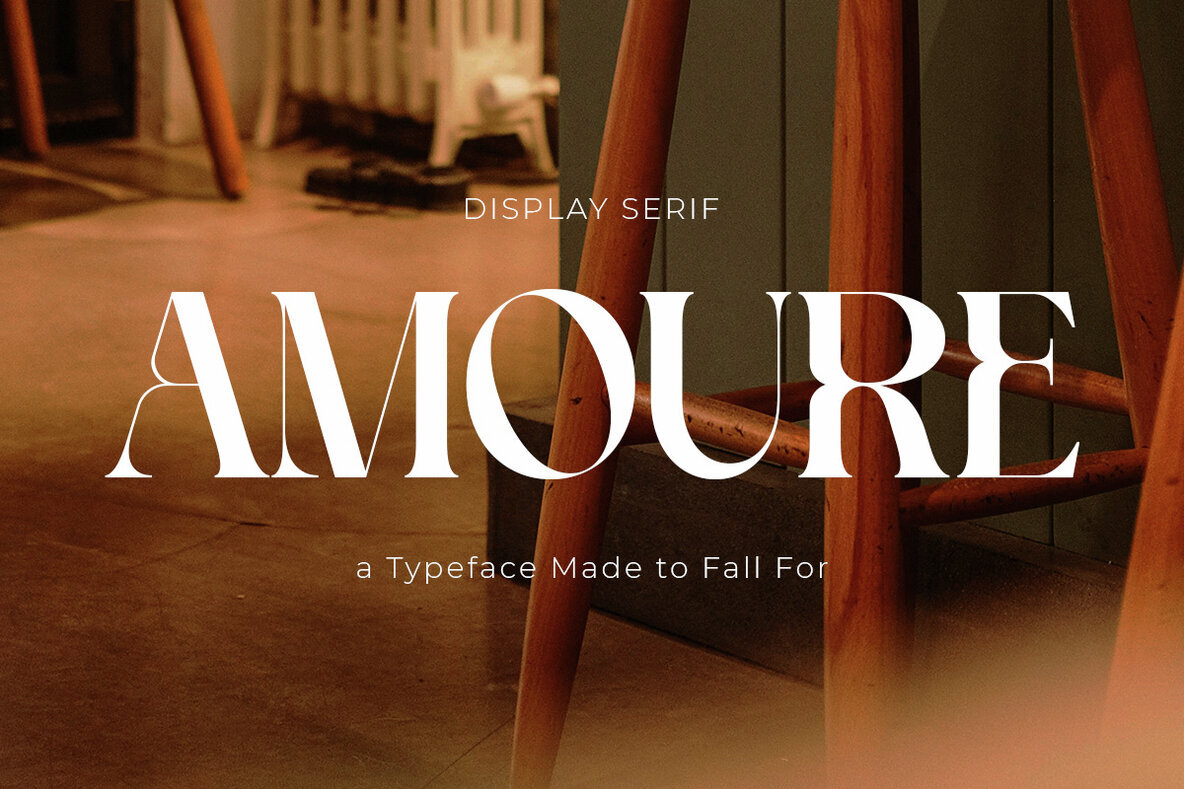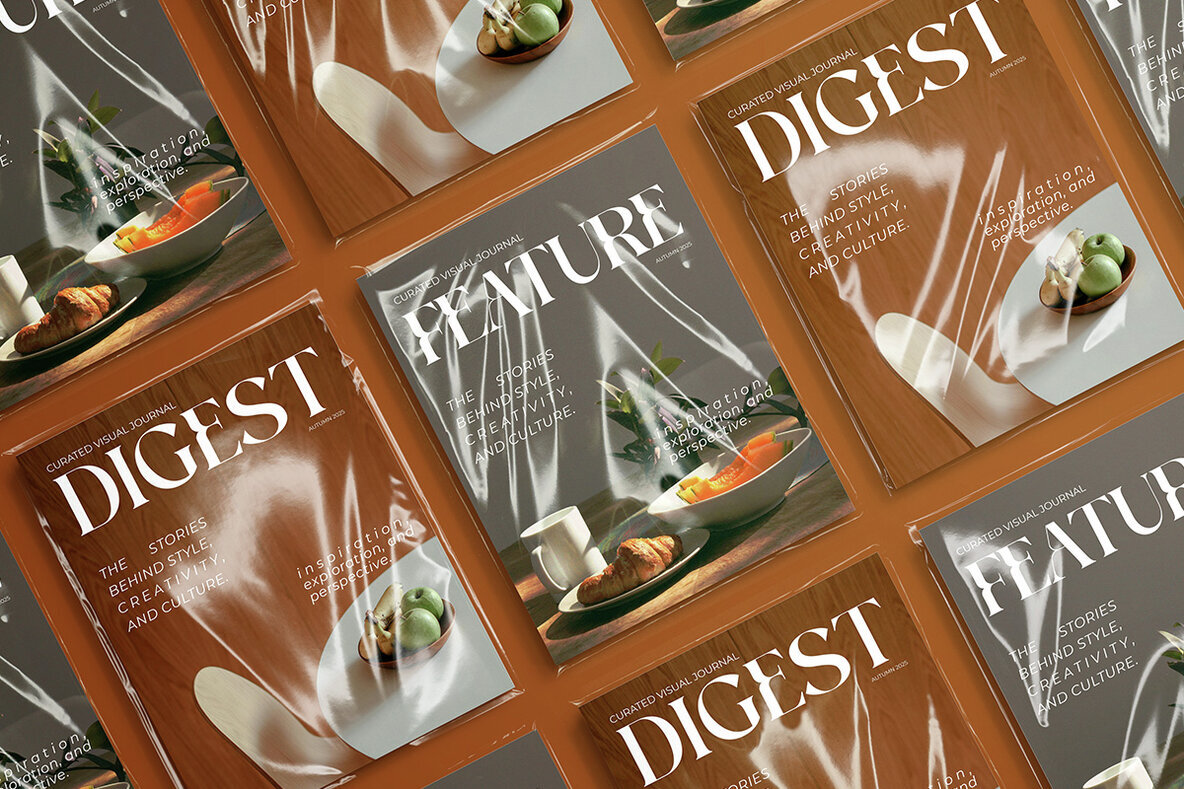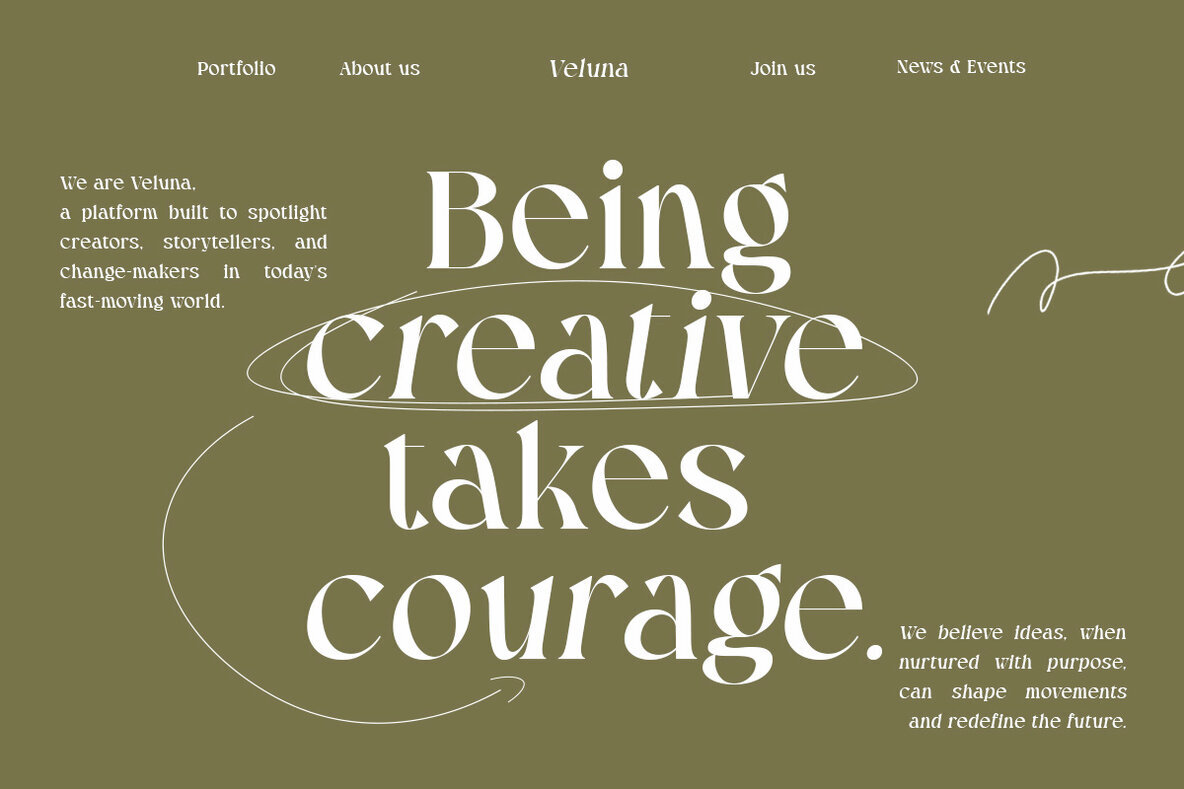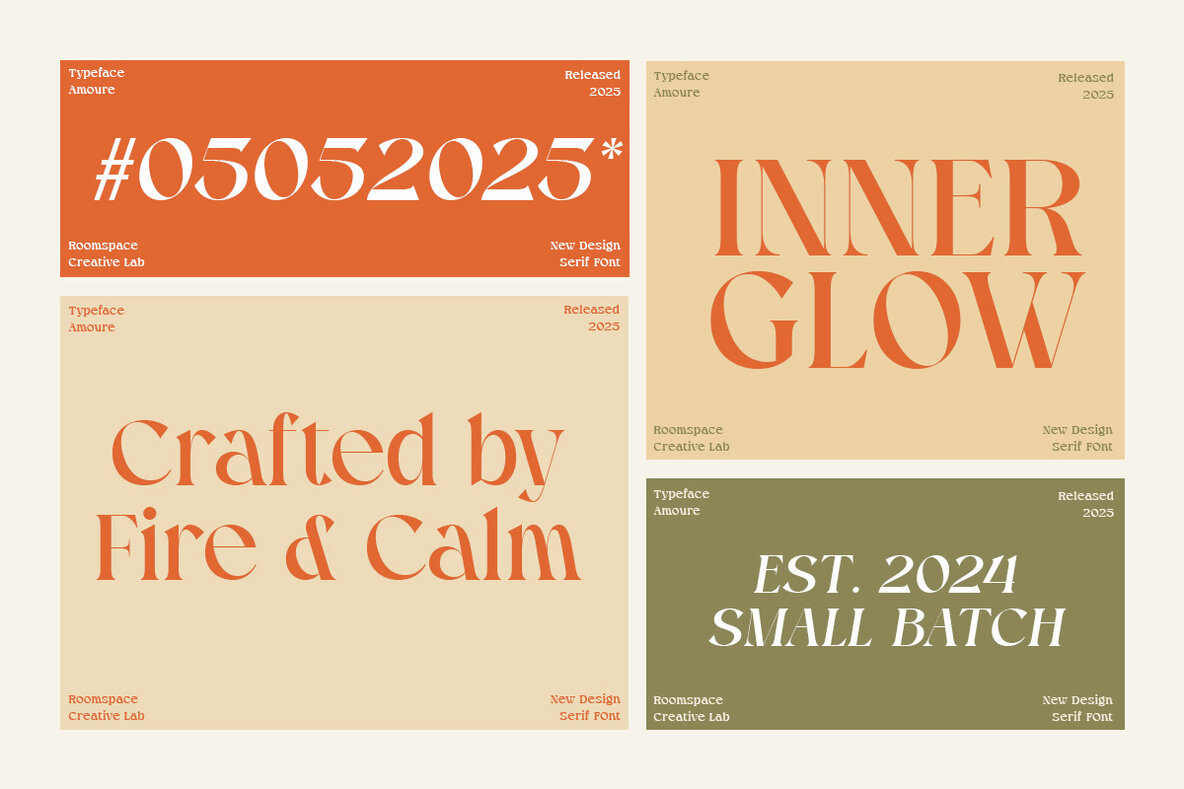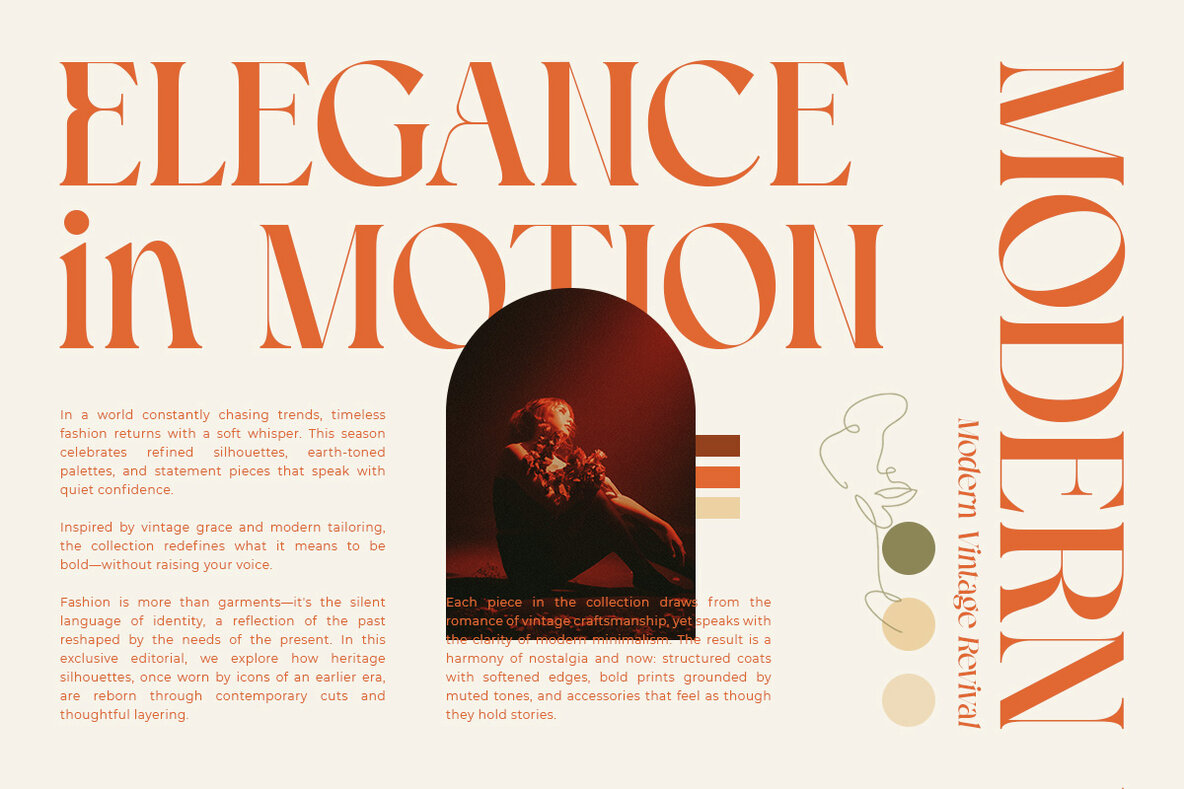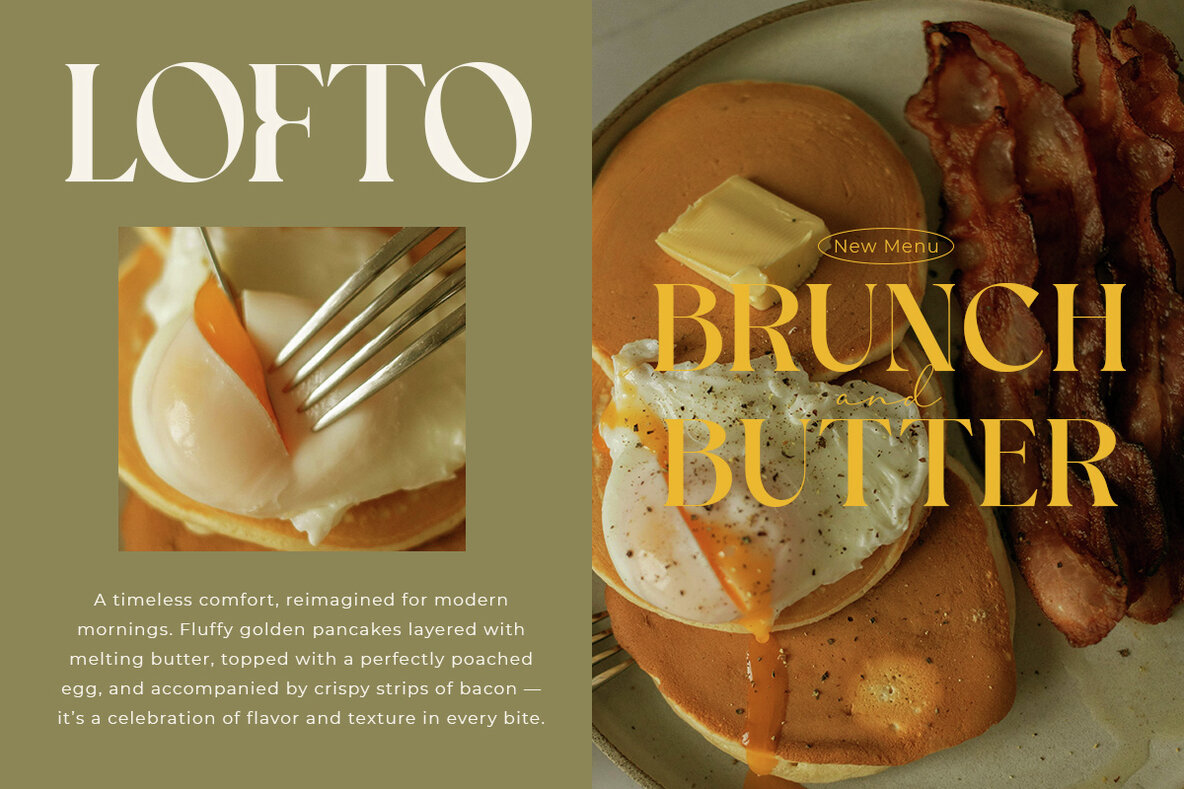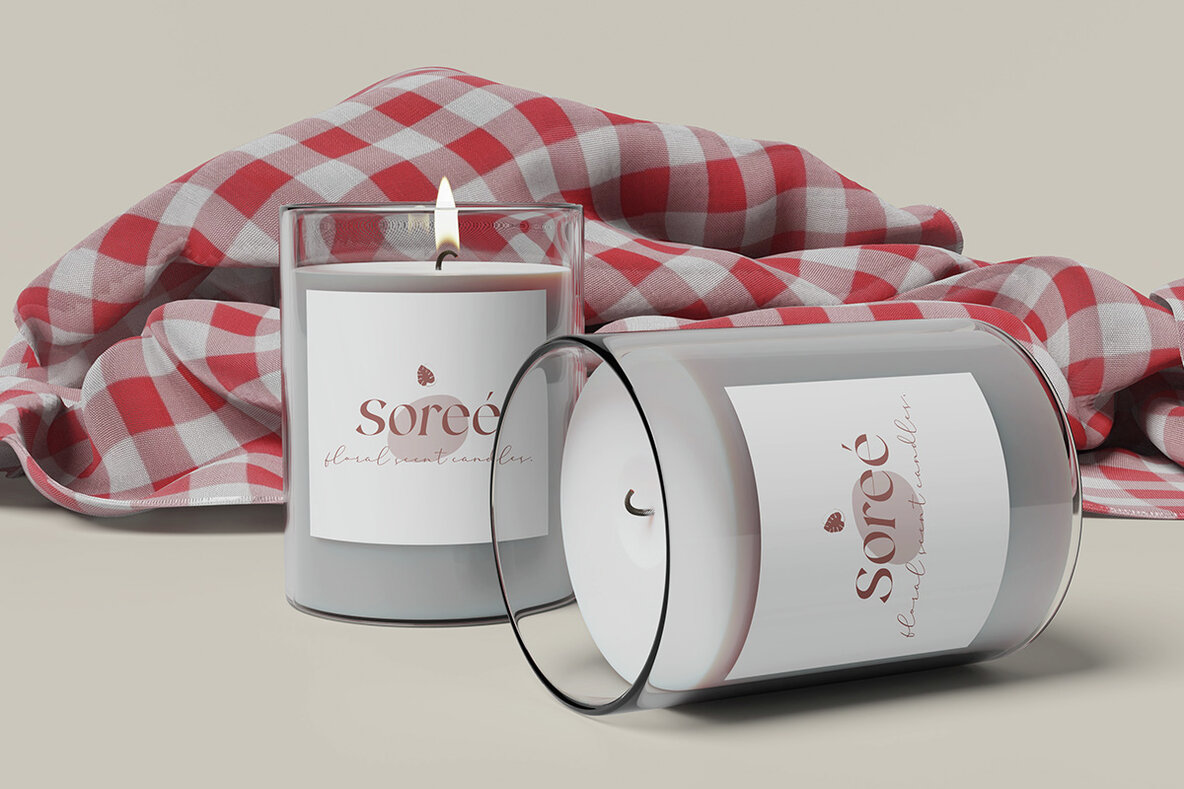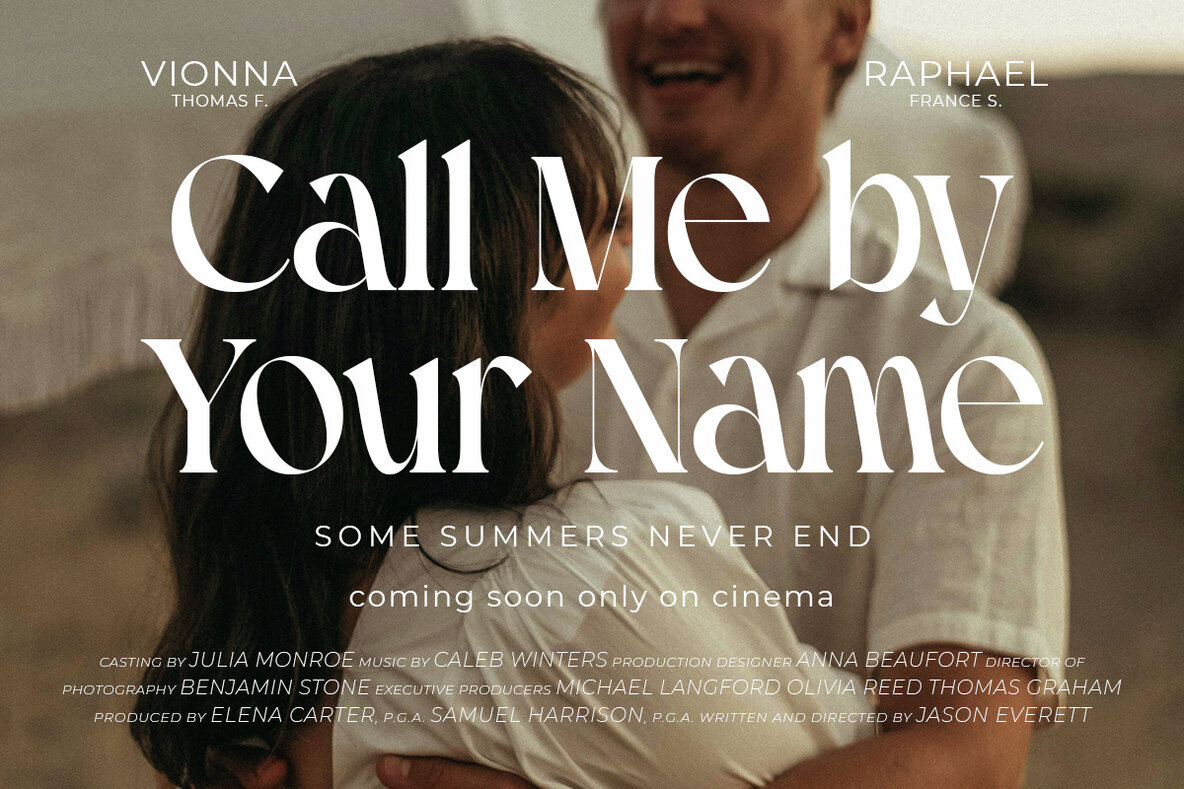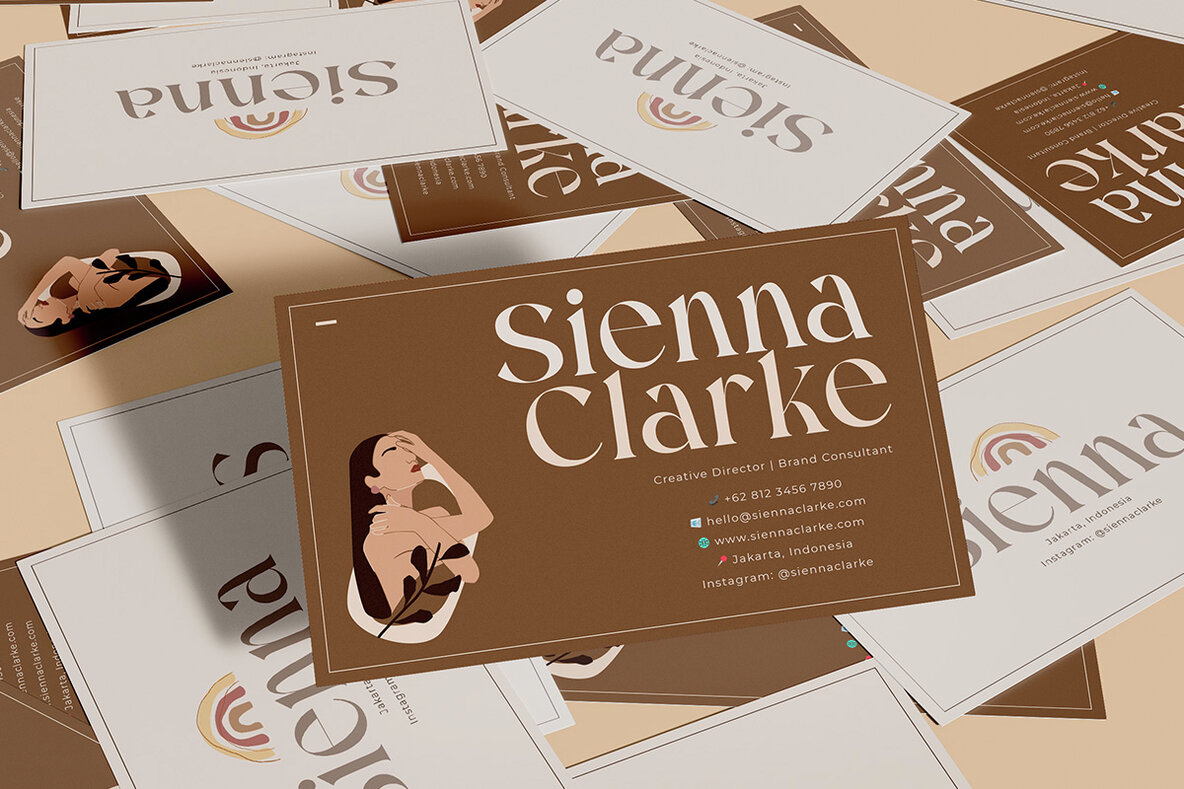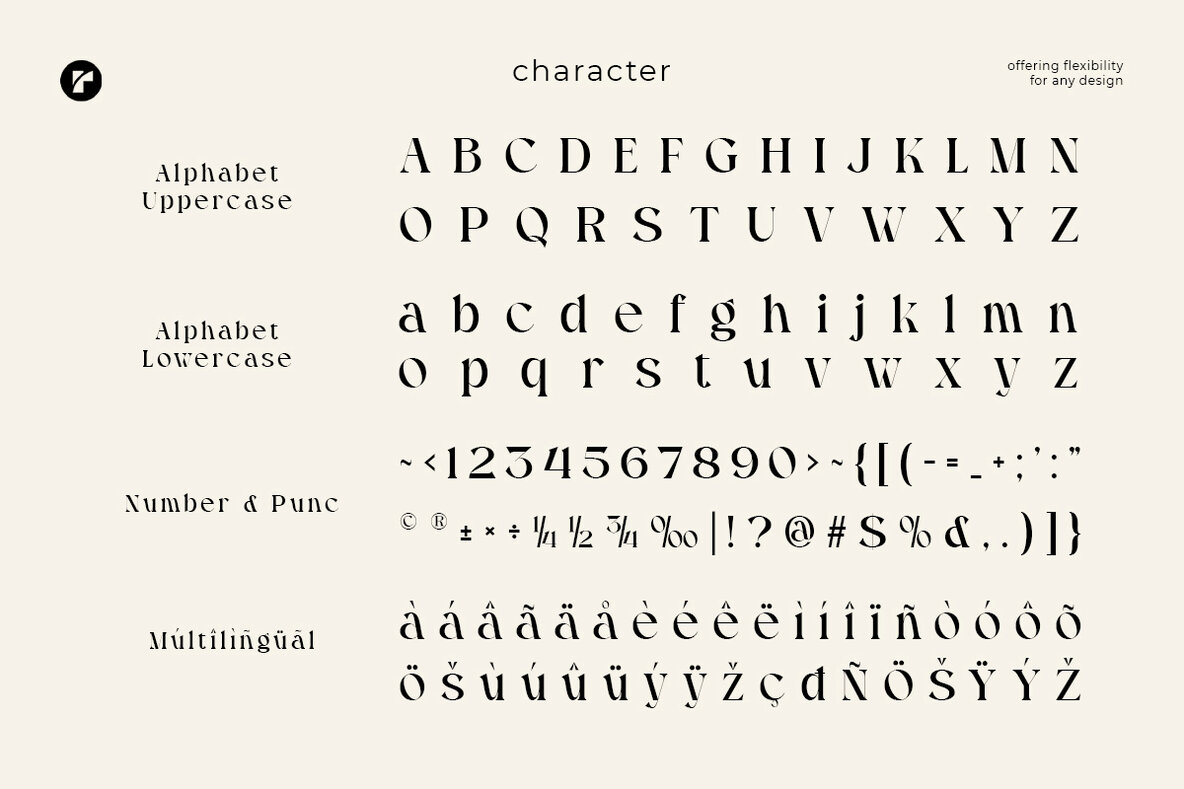
Amoure Font
Amoure is a striking display serif font that exudes elegance and sophistication. With its roots in fashion editorials and timeless romance, this typeface offers an emotional depth that's perfect for designers yearning for refined aesthetics. Imbued with graceful long serifs, sculpted curves, and dramatic contrast, Amoure shines in logos, wedding invitations, magazine headlines, and upscale packaging. Whether crafting visuals for a luxury brand, personal blog, or beauty product launch, Amoure ensures an unforgettable typographic presence. This font is designed to enhance your creative projects with its unique character and style.Amoure: High-Contrast Elegance